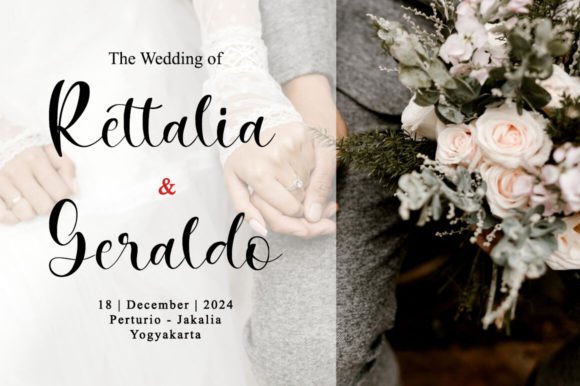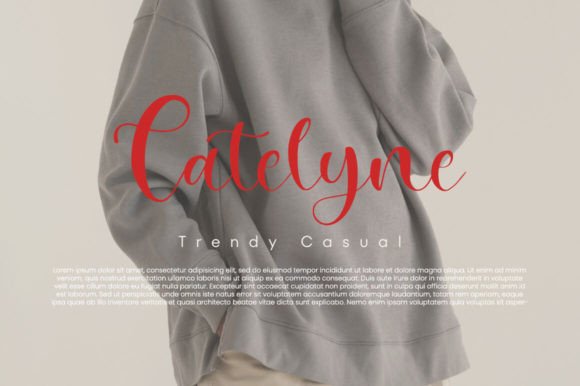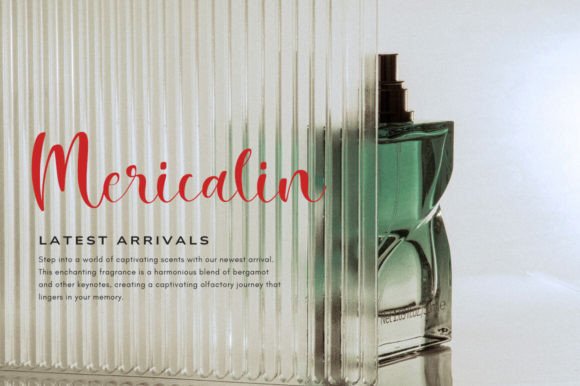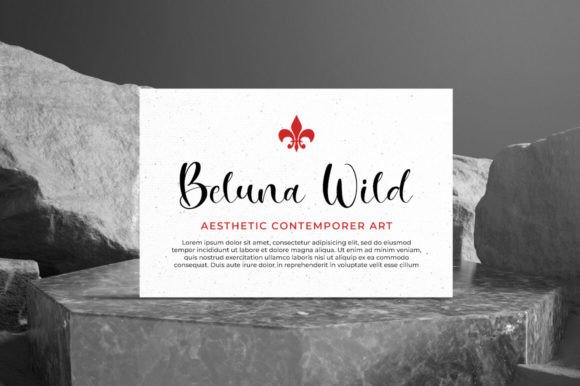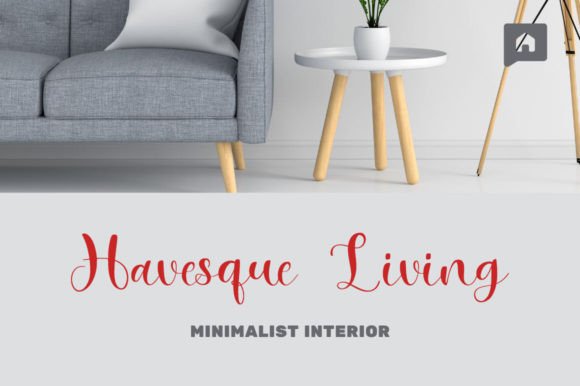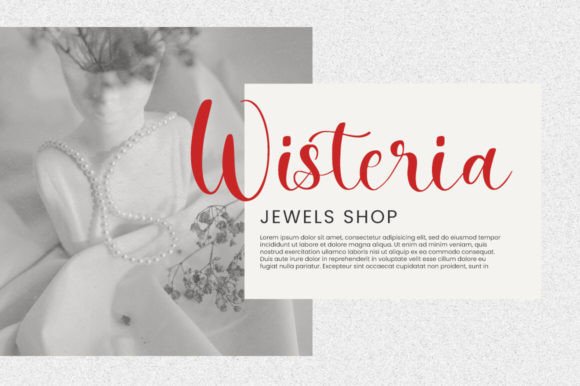
Discover the Elegance of Ferocilan Font: Elevate Your Designs with Timeless Typography
In the realm of typography, few fonts manage to capture the essence of elegance and versatility as effectively as the Ferocilan Font. This exquisite script offers a gorgeous typographic style that is perfectly suited for a wide array of projects, ranging from logos and branding to invitations, stationery, wedding designs, social media posts, advertisements, product packaging, product designs, labels, photography, watermarks, and any other creative endeavor that demands a touch of handwriting sophistication.
The Versatility of Ferocilan Script
The Ferocilan Script stands out for its unique blend of classic charm and modern appeal. Its fluid strokes and elegant letterforms make it an ideal choice for designers and crafters looking to infuse their work with a personal, handcrafted feel. Whether you’re working on a logo that needs to convey luxury and sophistication, or on a wedding invitation that requires a touch of romance and whimsy, the Ferocilan Font is up to the task.
Applications of Ferocilan Font
- Logos & Branding: Create a lasting impression with a logo that exudes elegance and professionalism. The Ferocilan Font’s distinctive style ensures that your brand stands out in a crowded marketplace.
- Invitations & Stationery: Add a touch of class to your invitations, greeting cards, and stationery. The font’s beautiful script is sure to make your correspondence memorable.
- Wedding Designs: Make your wedding designs truly special with the Ferocilan Font. It’s perfect for wedding invitations, save-the-date cards, and ceremony programs.
- Social Media Posts & Advertisements: Elevate your social media presence and advertisements with stylish text that captures attention. The Ferocilan Font can help you achieve a consistent and sophisticated look across all platforms.
- Product Packaging & Designs: Stand out on store shelves with product packaging and designs that incorporate the elegant Ferocilan Font. It’s an effective way to communicate your brand’s personality and values.
- Labels & Photography: Use the Ferocilan Font for labels and watermarks to add a professional and artistic touch to your photos and products.
Why Choose Ferocilan Font?
The Ferocilan Font offers several advantages that make it a preferred choice among designers and crafters:
- Unique Style: Its distinctive and stylish script sets it apart from more common fonts, ensuring your designs have a unique flair.
- Versatility: Suitable for a wide range of projects, from digital to print, the Ferocilan Font is incredibly versatile.
- Ease of Use: Designed to be user-friendly, it can be easily integrated into various design software, making it accessible for designers of all levels.
- Timeless Appeal: Unlike trend-specific fonts, the Ferocilan Script has a timeless quality that ensures your designs remain stylish for years to come.
Tips for Using Ferocilan Font Effectively
To maximize the impact of the Ferocilan Font in your designs, consider the following tips:
- Pair with Complementary Fonts: For maximum effect, pair the Ferocilan Font with fonts that complement its style. A sans-serif font can provide a nice contrast, making your design more dynamic.
- Adjust Letter Spacing: Experiment with letter spacing to achieve the desired look. For headings, you might want to tighten the spacing, while for body text, a more generous spacing can improve readability.
- Play with Colors: The Ferocilan Font can be used in various colors to match your brand’s palette. Don’t be afraid to experiment with different colors to find the perfect fit for your design.
| Author | fanastudio |
The Ferocilan Font is a powerful tool for designers and crafters looking to elevate their work with beautiful, handwriting-inspired typography. Its versatility, elegance, and timeless appeal make it an excellent choice for a wide range of projects. By incorporating the Ferocilan Script into your designs, you can add a touch of sophistication and personality that sets your work apart. Whether you’re a seasoned designer or just starting out, the Ferocilan Font is sure to inspire your creativity and help you achieve stunning results.